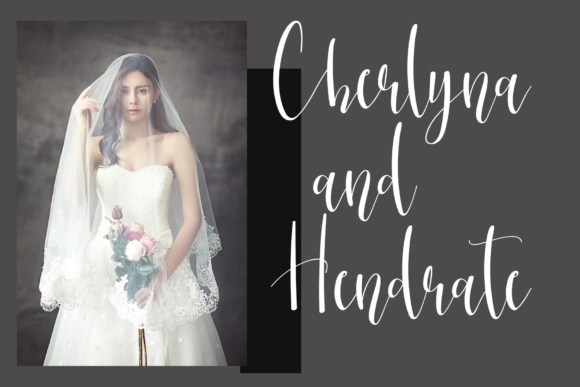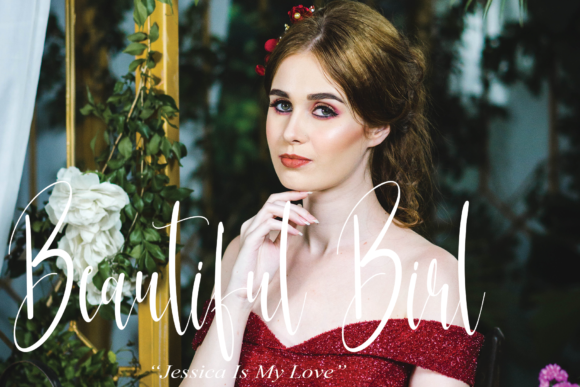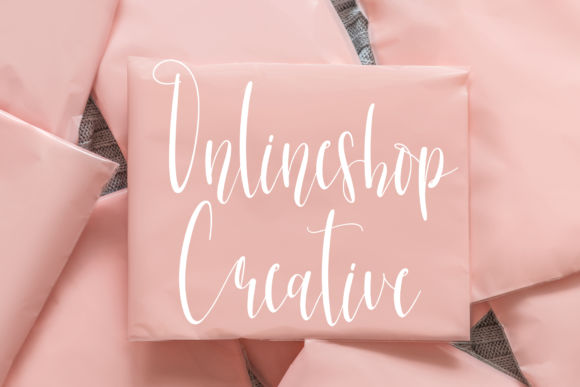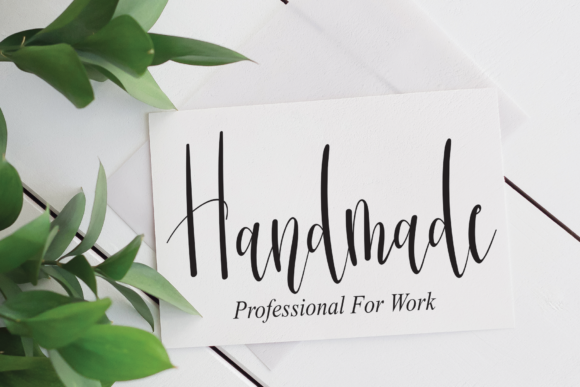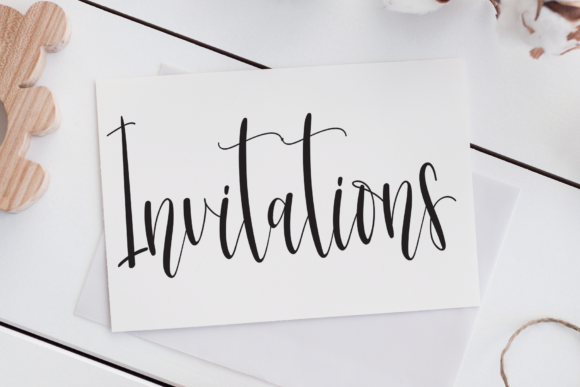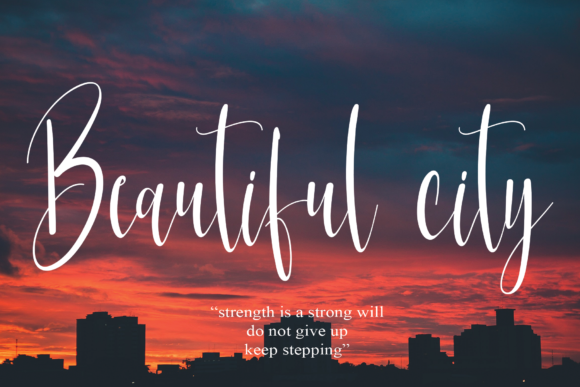
The Designer’s Delight: Uncovering the Beauty of Bonekastar Font
I’ll never forget the time I was working on a fashion branding project, and my client asked me to create a logo that exuded elegance and sophistication. I scoured the internet for the perfect font, but nothing seemed quite right. That was until I stumbled upon Bonekastar Font. This beautiful, well-balanced, and stylish script font has been a game-changer for my design projects, and I’m excited to share my experience with you.
I’ve had the pleasure of working with Bonekastar Font on several projects, and here’s what I think:
• ✨ Smooth curves and flowing lines that give it a luxurious feel
• ✅ Perfect for fashion branding, editorial designs, and high-end projects
• 💫 Highly legible, even at smaller font sizes
• 🎨 Versatile and works well with a variety of design styles
While Bonekastar Font is a stunning addition to any design project, there are a few quirks to be aware of:
• 🤔 Limited availability of certain glyphs and special characters
• ⚠️ May not be suitable for body text or long-form content due to its script nature
3. Experiment with OpenType features, such as ligatures and stylistic alternates, to add visual interest to your design
The Story Behind Bonekastar Font
Bonekastar Font was designed by a team of typographers who aimed to create a beautiful, elegant script font that would meet the needs of designers and crafters. Inspired by classic calligraphy and modern typography, Bonekastar Font is the result of meticulous craftsmanship and attention to detail.
What is Bonekastar Font best suited for? Bonekastar Font is perfect for fashion branding, editorial designs, and high-end projects that require a touch of elegance and sophistication.
Is Bonekastar Font available in different weights or styles? Currently, Bonekastar Font is available in a single weight. However, the font may be updated with additional weights or styles in the future.